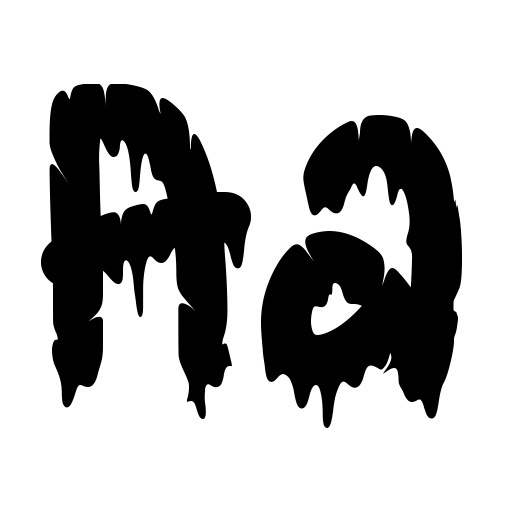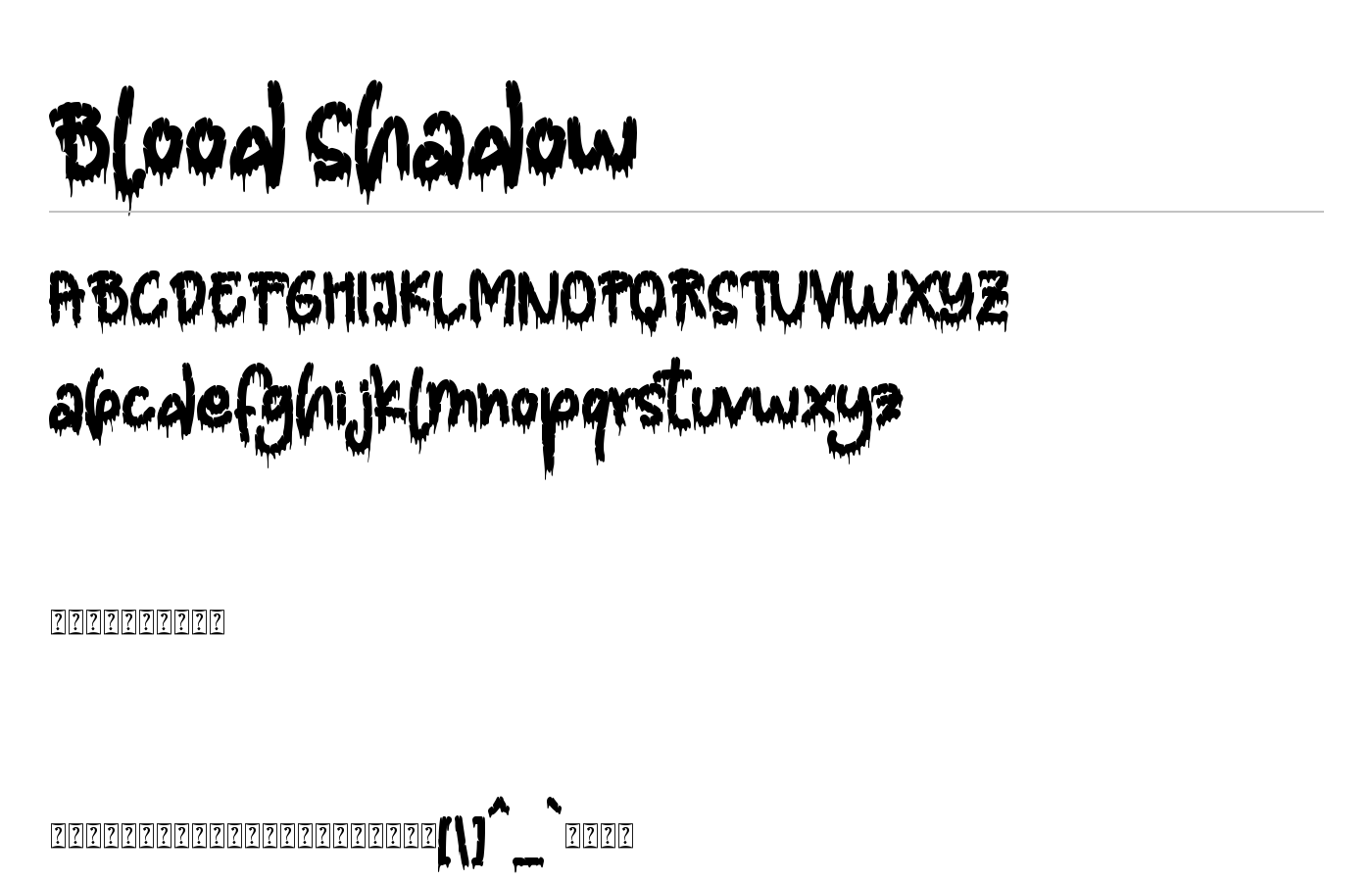
Blood Shadow is a bold, decorative display font featuring rough, dripping edges that evoke a spooky, horror-themed vibe. Its irregular, distorted letterforms make it perfect for Halloween designs, horror movie posters, or any creative project seeking an eerie and dramatic atmosphere. This font works best in headlines or logos where a striking, eye-catching effect is needed.
Blood Shadow Font
About Blood Shadow Font
| Font family | Blood Shadow Font |
| Designer | Nox Studio 2021 |